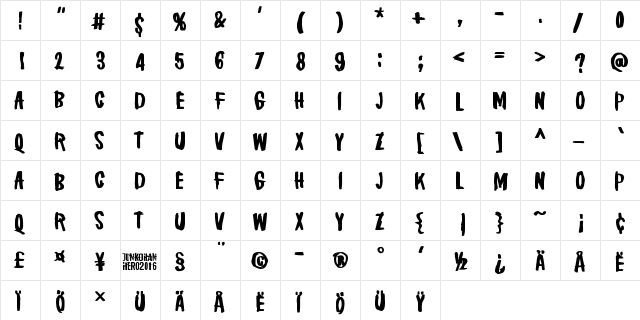
Brake a leg! Regular Font Preview
Brake a leg! Regular
Brake a leg! Regular Font Details
Design Context for Brake a leg! Typeface
Brake a leg! is a composed and adaptable typeface that performs quietly and consistently across a wide range of design contexts.